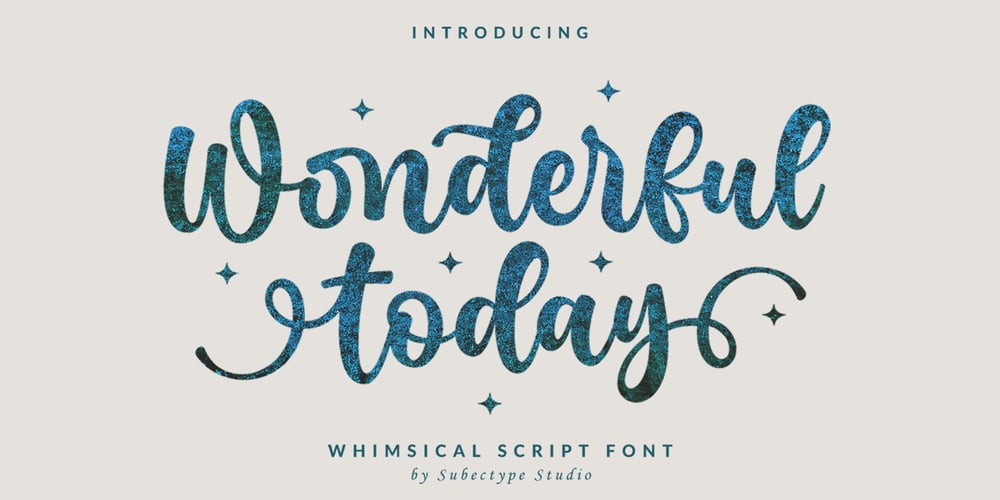
Wonderful Today
Wonderful Today font
Wonderful Today Font Family was designed by Rangga Subekti and published by Subectype. Wonderful Today contains 1 styles and family package options. Wonderful Today is a Whimsical Display font, described by a Cute style touch, perfect for your favorite projects.Fall in love with its incredibly distinct and timeless style and use it to create spectacular designs!Thank You,Subectype